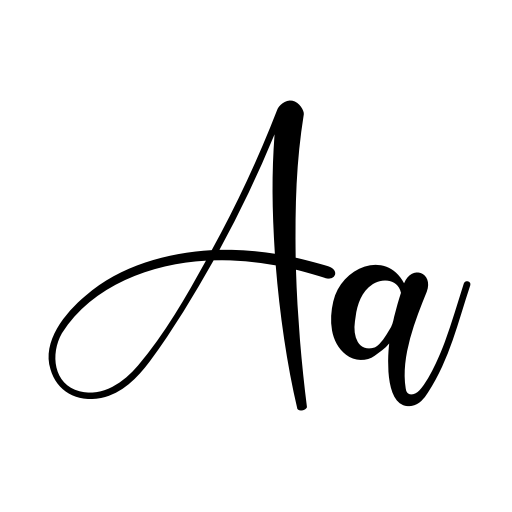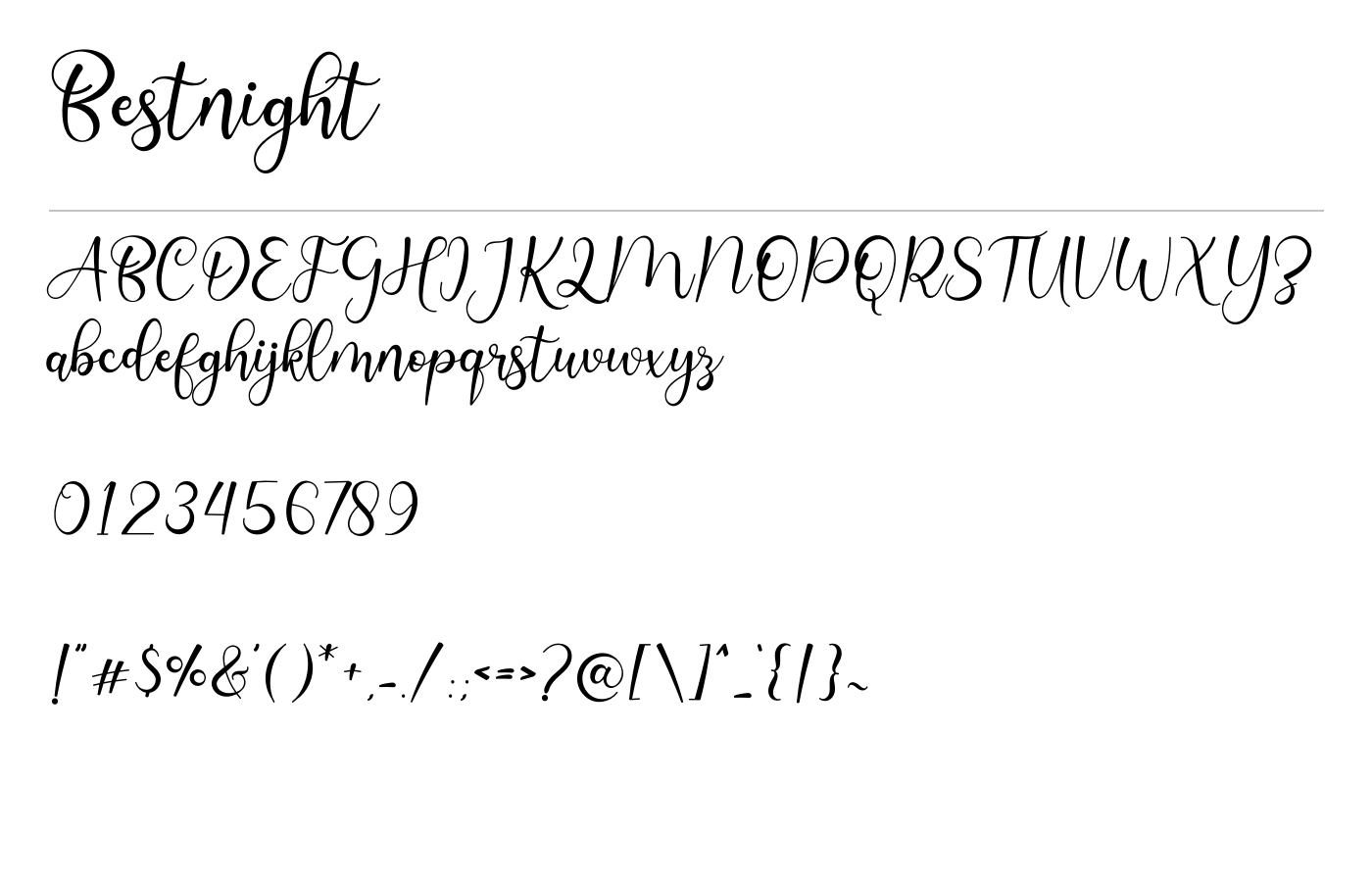
Bestnight is an elegant script font with a smooth, calligraphic style that combines a delicate, high-contrast stroke with graceful, flowing letterforms. Its playful yet refined character makes it perfect for luxury branding, invitations, and fashion-related designs where a sophisticated and personal touch is desired. This font shines in headlines and logos, adding charm and elegance while maintaining readability.
Bestnight Font
About Bestnight Font
| Designer | Ainur Rofiq |